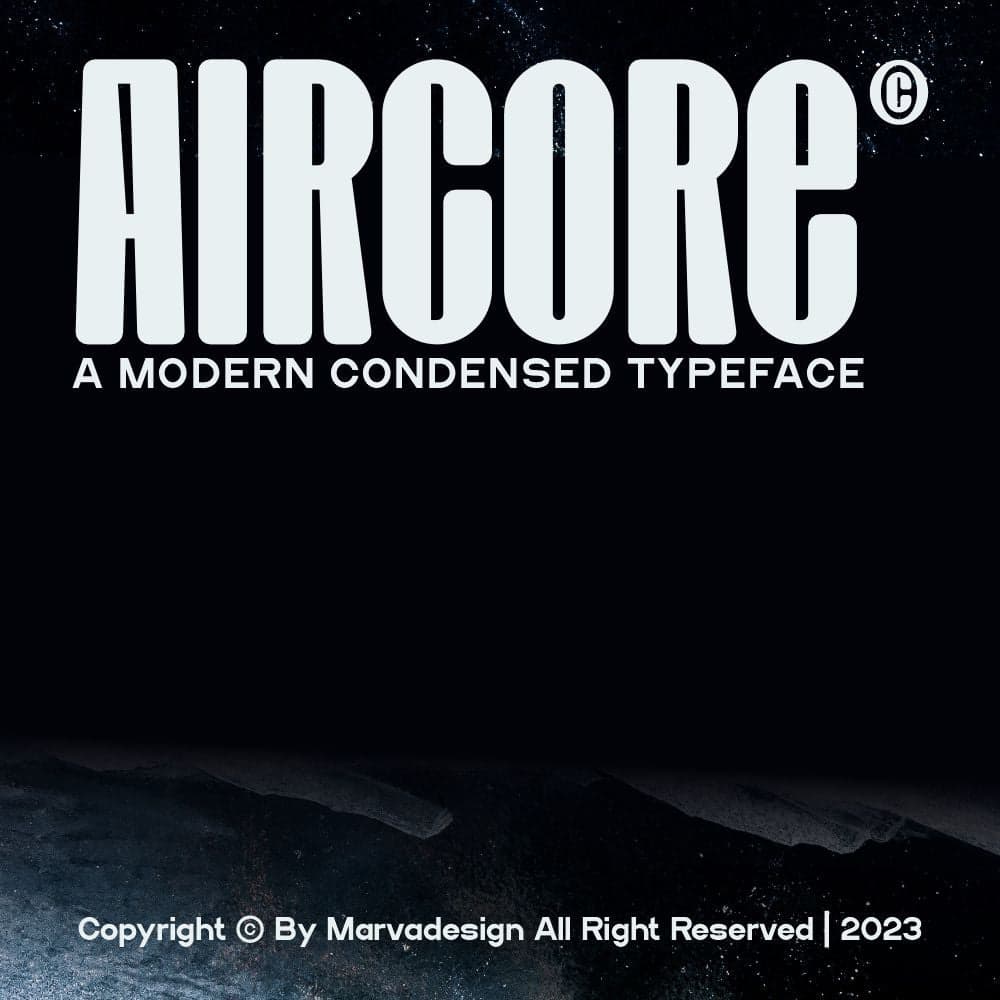
<p>The <strong>Aircore</strong> typeface is a modern, condensed font designed to provide a sleek, contemporary, and space-efficient typography solution. Characterized by its narrow, compact letterforms with a bold and geometric aesthetic, Aircore is well-suited for various design applications, including graphic design, branding, posters, headlines, and editorial layouts. The condensed nature of the typeface allows for a higher character density, making it an ideal choice for maximizing space while maintaining readability and visual impact.<br>The font exudes a futuristic yet timeless appeal, striking a balance between minimalism and bold expressiveness. Its smooth, rounded edges and uniform stroke widths contribute to a clean and sophisticated look, making it highly versatile for both digital and print media. Whether used in corporate branding, advertising campaigns, or creative design projects, Aircore effectively communicates modernity, elegance, and efficiency in typography.</p>